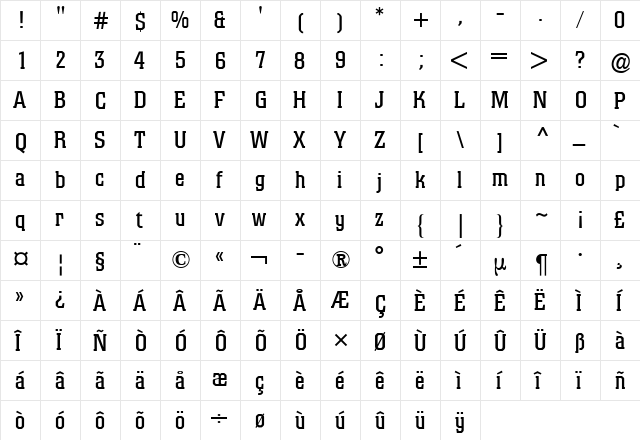
Colossalis BQ Regular
Colossalis BQ offers clean, dependable letterforms without strong stylistic allegiance, making it a practical choice for designers who need flexibility.